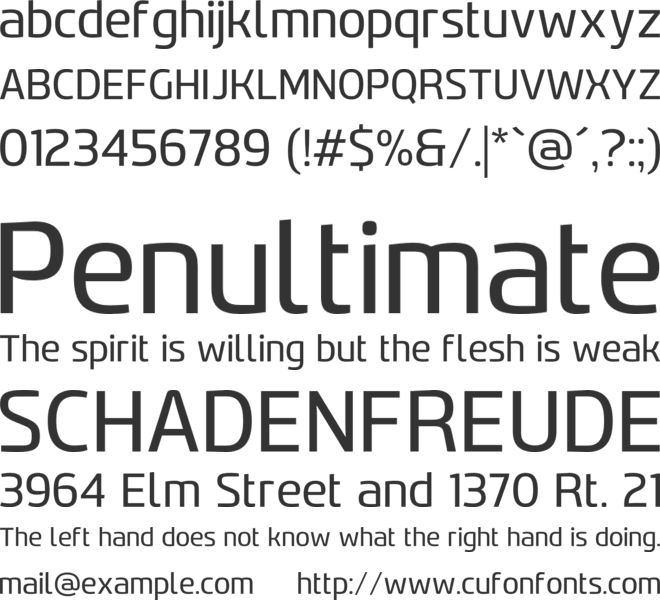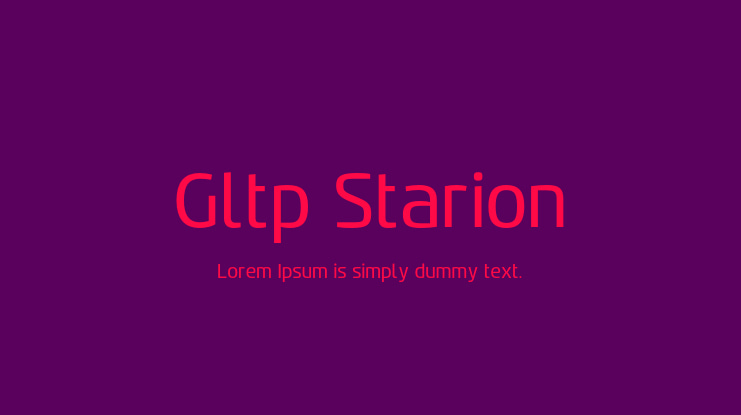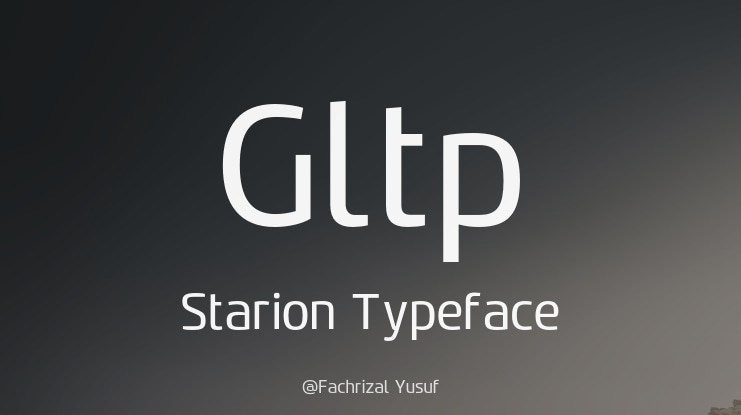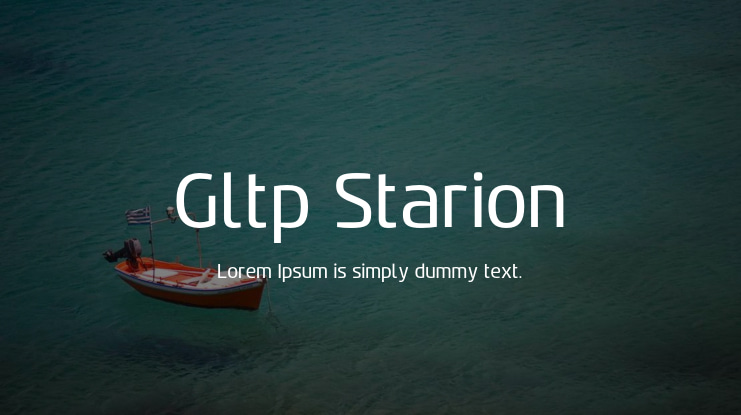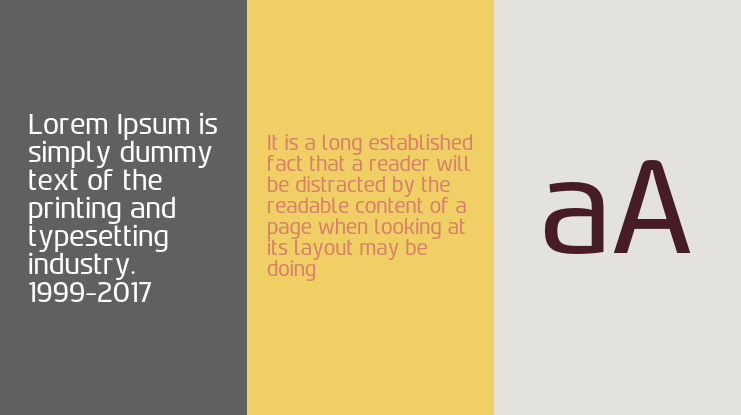
Gltp Starion Font Family
The GLTP Starion Font Family is a super sans serif family featuring open shapes and a technical vibe. It draws inspiration from the requirements of the automotive industry, technology, performance, and style.
• Futuristic
• Ultra Modern
• Techy
This type family aims to meet the demands of designers seeking a purposeful look for various applications, from automotive brands to space travel, aviation, technology, luxury watches, and more. It spans 8 weights, 7 widths, and oblique variations, ranging from Thin to Black and Condensed to Ultra Expanded. GLTP Starion is designed to be both functional and aesthetically pleasing, suitable for both on-screen and print uses.